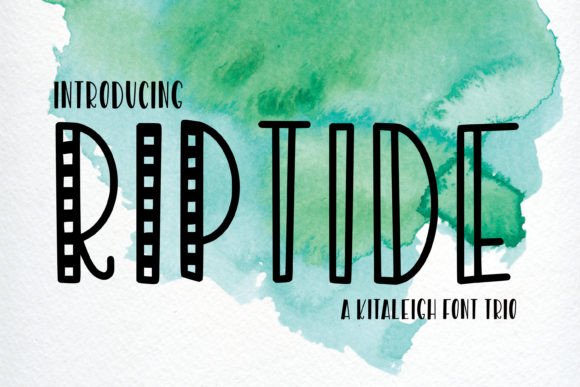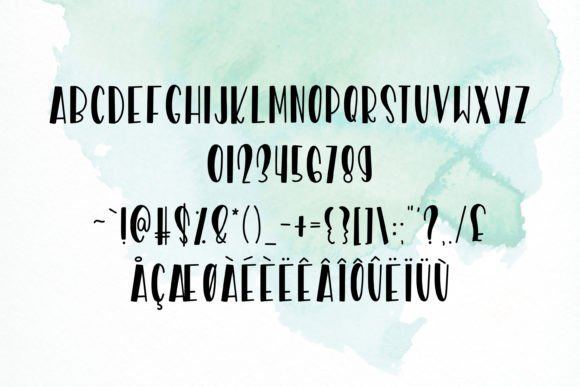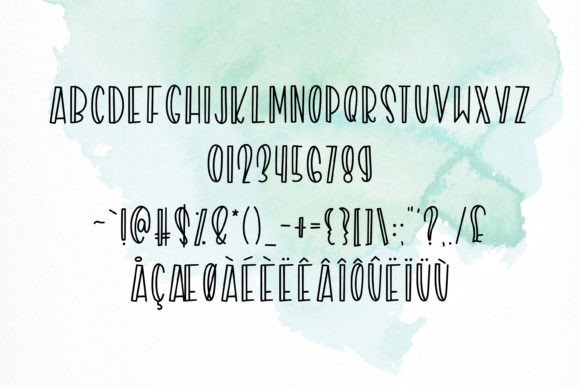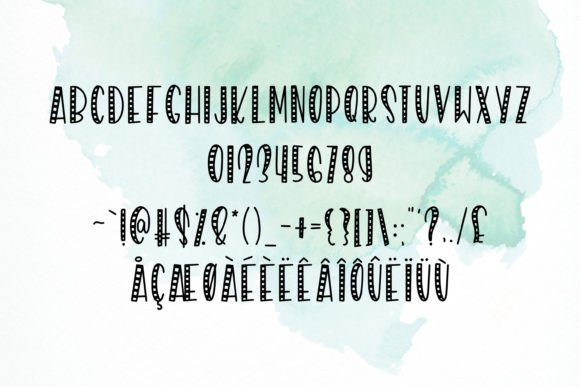
Rip Tide Font: A Playful Display Font Trio for Summer Designs!
About the Rip Tide Font
Add a touch of class to your work with the Rip Tide Font, a truly exceptional typeface. Introducing “Rip Tide,” a versatile and playful font trio that brings a splash of creativity to your designs. This font set includes three unique styles: solid, striped, and dotted, giving you the flexibility to mix and match for various design projects. Perfect for beach-themed designs, summer events, logos, and product labels, “Rip Tide” adds a fun, vibrant, and breezy touch to any creation. Its clean lines and bold shapes make it an excellent choice for both print and digital work.
Rip Tide’s playful energy makes it ideal for headlines, short text blocks, logos, and packaging where a vibrant, eye-catching aesthetic is desired. It works exceptionally well for brands targeting a younger demographic or promoting products with a fun, summery feel. However, its decorative nature makes it less suitable for body text or UI elements requiring high readability.
For optimal pairings, consider pairing the solid style with a clean sans-serif like Open Sans for a balanced contrast, or with a playful script font like Pacifico for a more whimsical effect. The striped and dotted styles lend themselves well to accents, working well alongside a more neutral serif font such as Lora for a sophisticated yet fun combination.
The overall personality of Rip Tide is energetic and informal, yet its clean lines prevent it from appearing childish. This makes it versatile for a wide range of applications, from beach-themed branding to playful product labels.